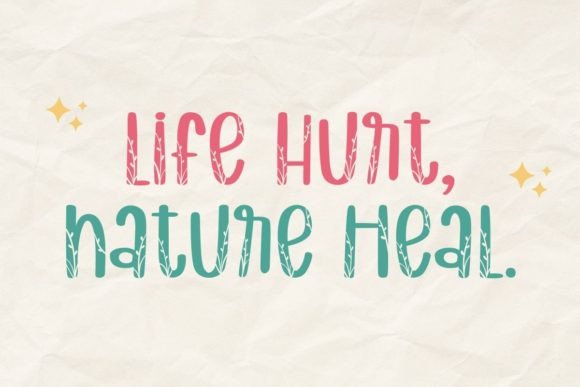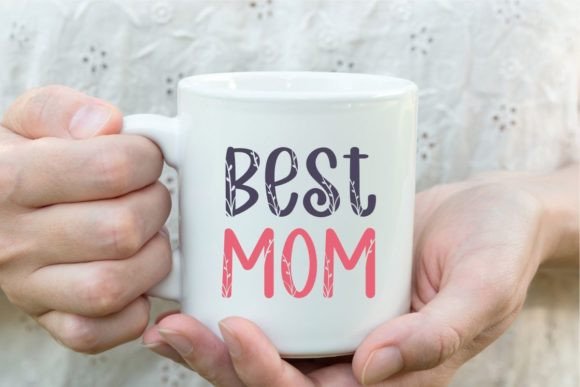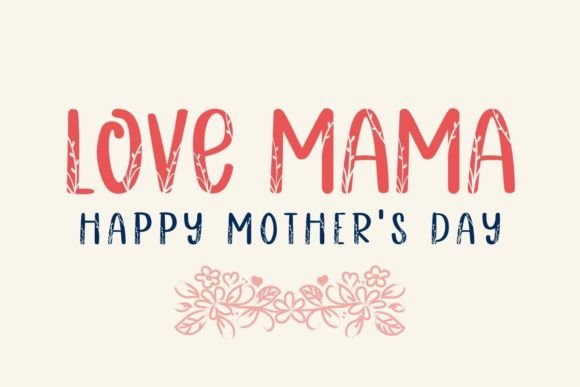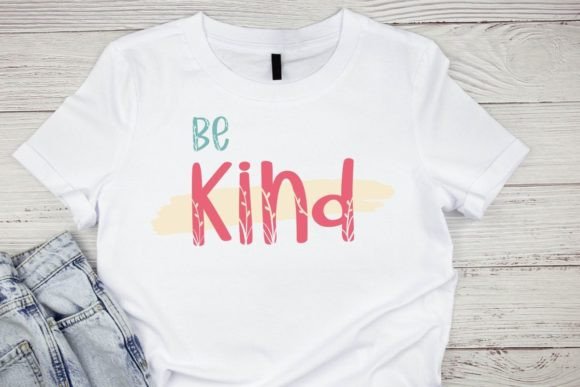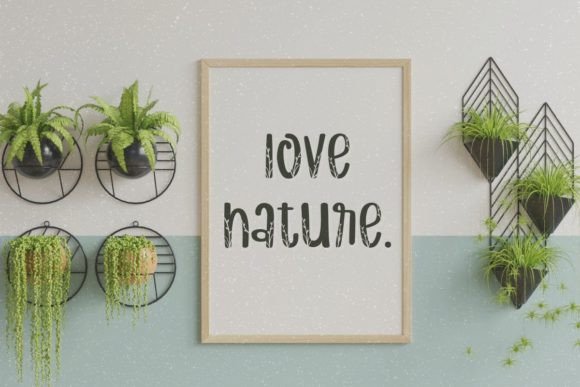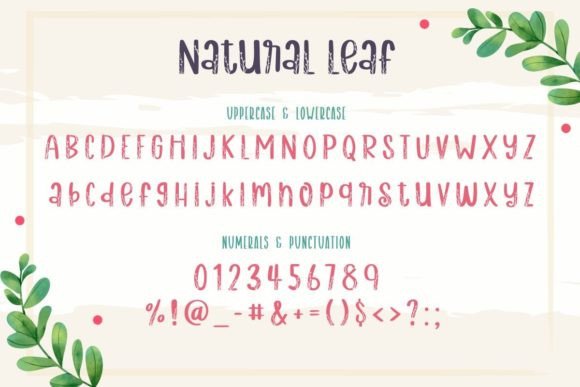
Introduction to Natural Leaf Font
Have you ever been working on a creative project and suddenly feel like something is missing? You’ve got the perfect concept, but the font just doesn’t quite match the vibe. That’s where the Natural Leaf Font comes in – a charming and whimsical design that can instantly elevate your project and bring it to life.
Whether you’re a seasoned designer or just starting out, the Natural Leaf Font is a valuable addition to your design resource toolkit. Its high quality and versatility make it perfect for a wide range of creative projects, from social media posts to custom merchandise. And the best part? It’s free to download, so you can experiment with it to your heart’s content without breaking the bank.
- Designed to mimic the natural texture of leaves, providing a unique and creative touch to any design project.
Honest Review: Natural Leaf Font
As a designer, I’m always on the lookout for unique and high-quality design resources to add to my toolkit. The Natural Leaf Font caught my eye with its beautiful, intricate designs that evoke a sense of nature. In this review, I’ll share my thoughts on what works well and what could be improved.
When I first opened the font, I was blown away by the level of detail and realism. The Natural Leaf Font is perfect for designers looking to add a touch of nature to their designs.
- Some of the designs may be too intricate for certain projects, making them difficult to read or use.
- Limited font styles, which may not be suitable for every design need.
Overall, I’m impressed with the Natural Leaf Font and would recommend it to designers looking for a unique and high-quality design resource. With some careful planning, this font can be a valuable addition to any design project.
The Natural Leaf Font is a free design resource ideal for creative projects that require a high-quality, natural look. With a transparent background, this font is perfect for overlaying on images or backgrounds.
The Natural Leaf Font is perfect for:
Wedding invitations, event materials, and stationery
Product labels, packaging, and branding materials
Editorial and publishing materials, such as magazines and books
Any design project that requires a natural, earthy feel